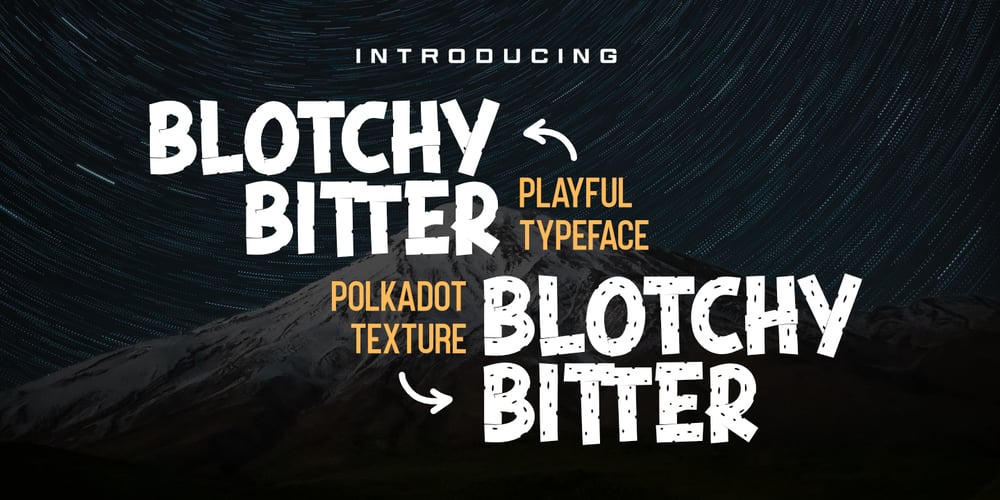
Blotchy Bitter Texture Font Family was designed by Toni Dzulham and published by Dumadi. Blotchy Bitter Texture contains 2 styles and family package options. Blotchy Bitter – Playful Typeface is made with a regular version and a polka-dot textured version ready to perfect the design in your project.Blotchy Bitter is perfect for design, logos, social media, branding, advertising, product design, handwritten quotes, product packaging, headers, posters, merchandise, and other designs.